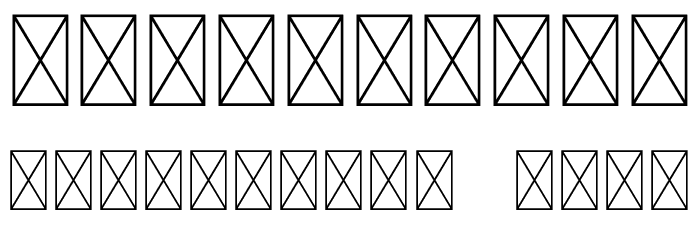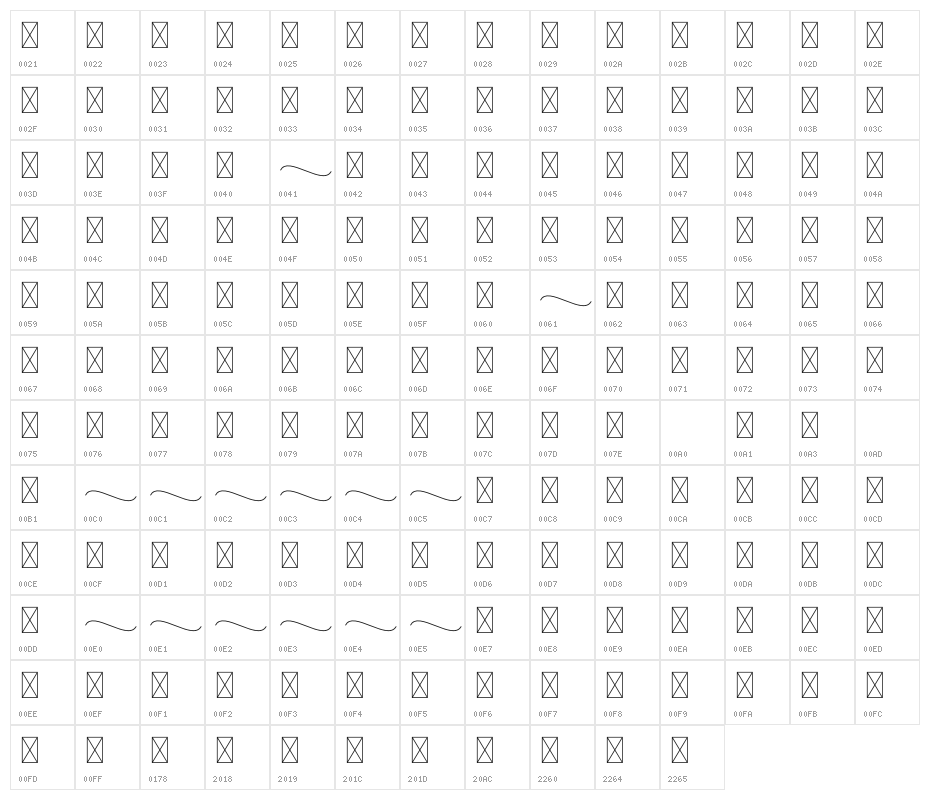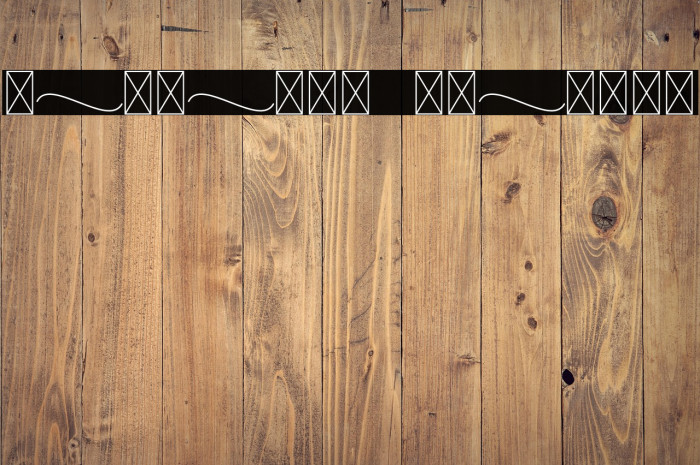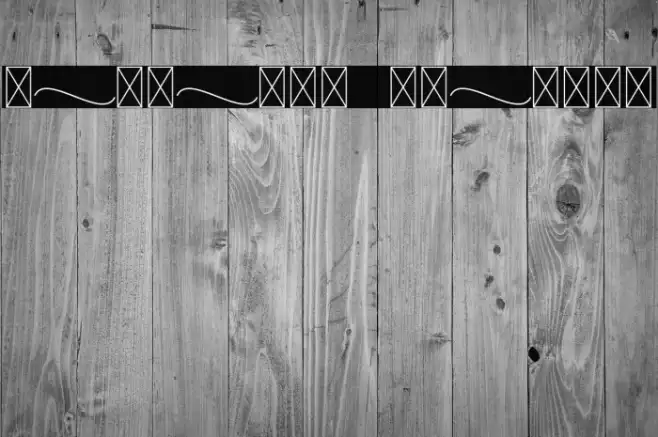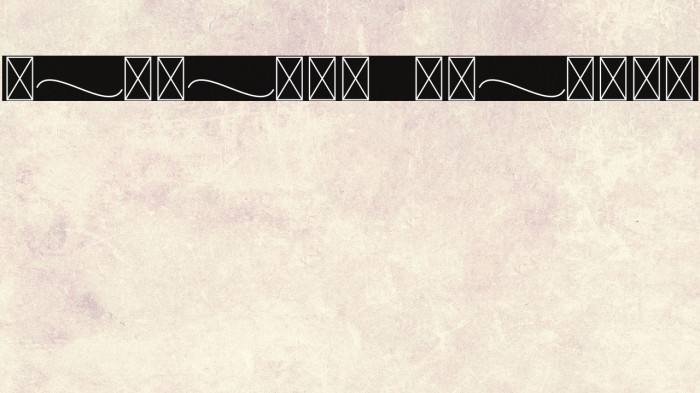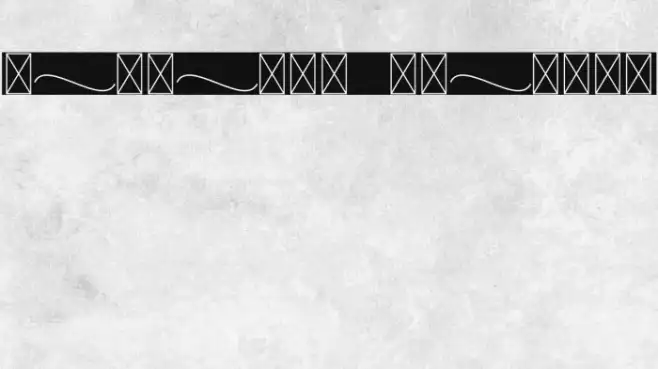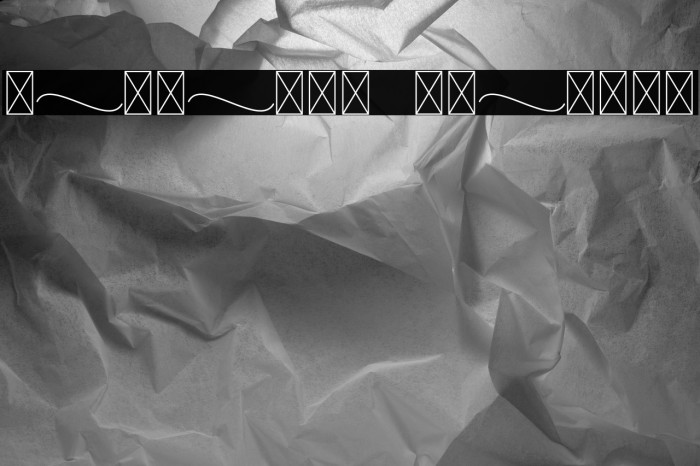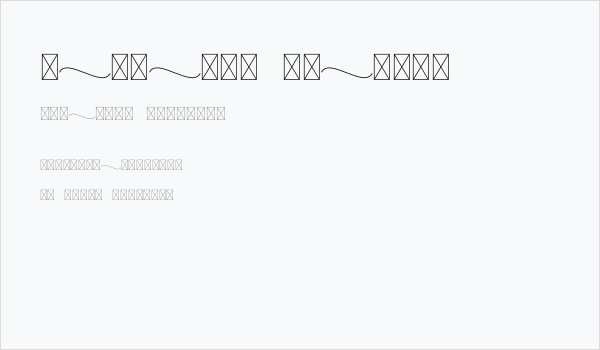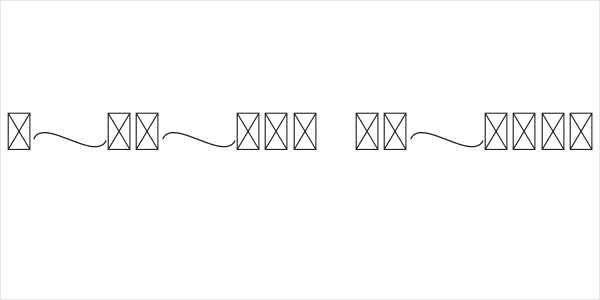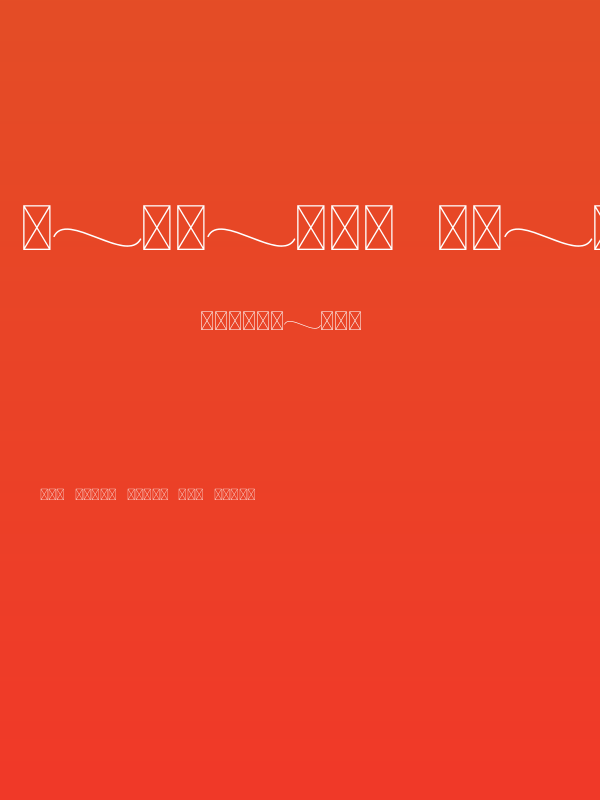
Lailatul Swashes Font
Lailatul Swashes Description
This font is characterized by its elegant and flowing swashes, adding a decorative flair to each character. The design incorporates long, sweeping lines that extend from the letters, creating a sense of movement and grace. The strokes are smooth and consistent, with a medium contrast between thick and thin lines. This style is reminiscent of classic calligraphy, offering a sophisticated and artistic appearance. The font's unique swashes make it ideal for creative projects where a touch of elegance is desired.